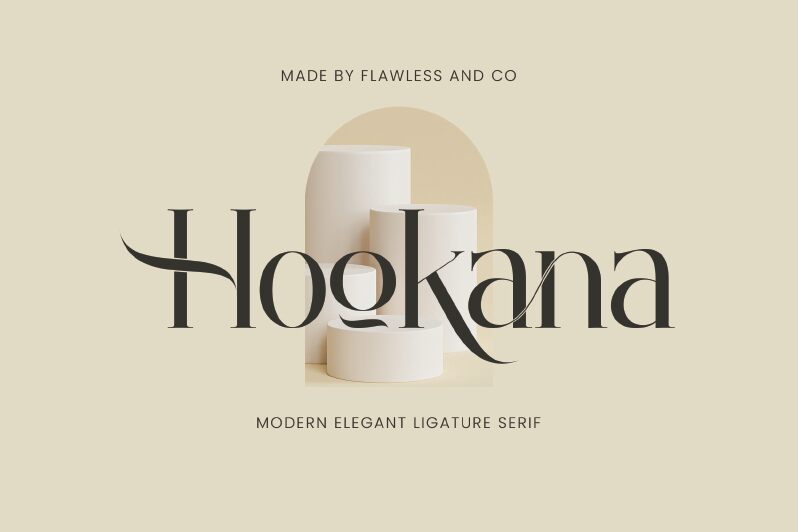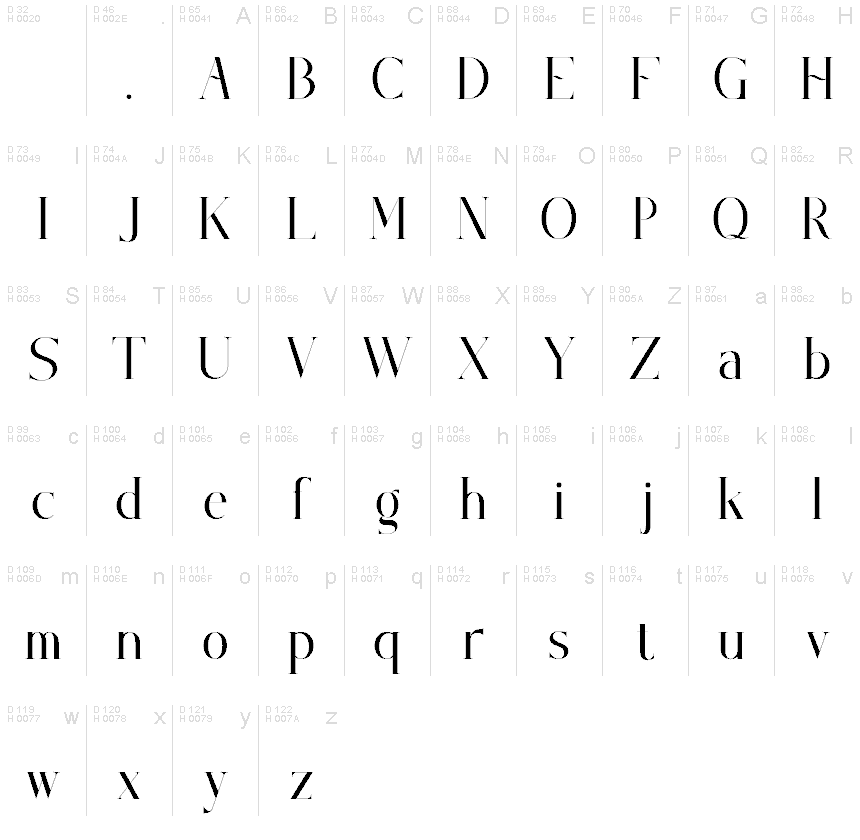
Hookana Regular
Hookana font by Achmad Yani is an elegant and sophisticated free serif font. With refined lines and a luxurious feel, each letter carries an air of modernity and high-end appeal. Sleek with a dash of originality, this text typeface is specifically designed for those who demand perfection in their typography projects.
Use Hookana in magazines, book covers, websites, apps presentations, business cards, corporate design elements or marketing materials such as flyers/brochures. It’s great for various types of invites especially wedding ones and many other similar ideas too.